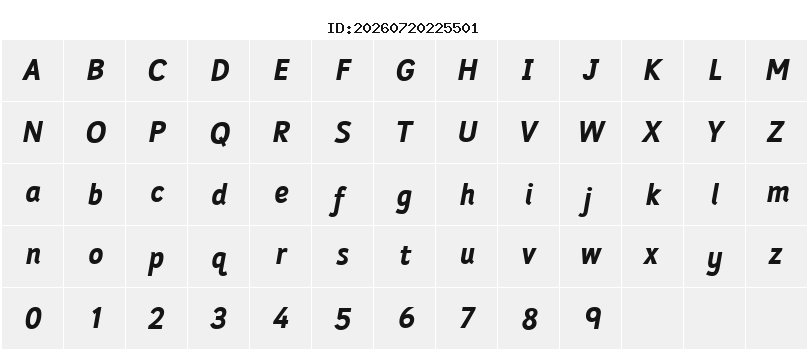
• Font Name: Folder
• Designer: Ray Larabie
About Folder.ttf
Folder.ttf is a modern, elegant sans-serif font designed for ultimate readability and visual harmony. Perfect for branding, headlines, web design, and print materials.